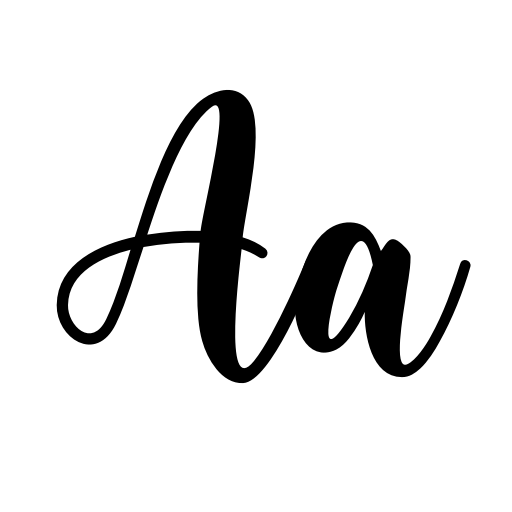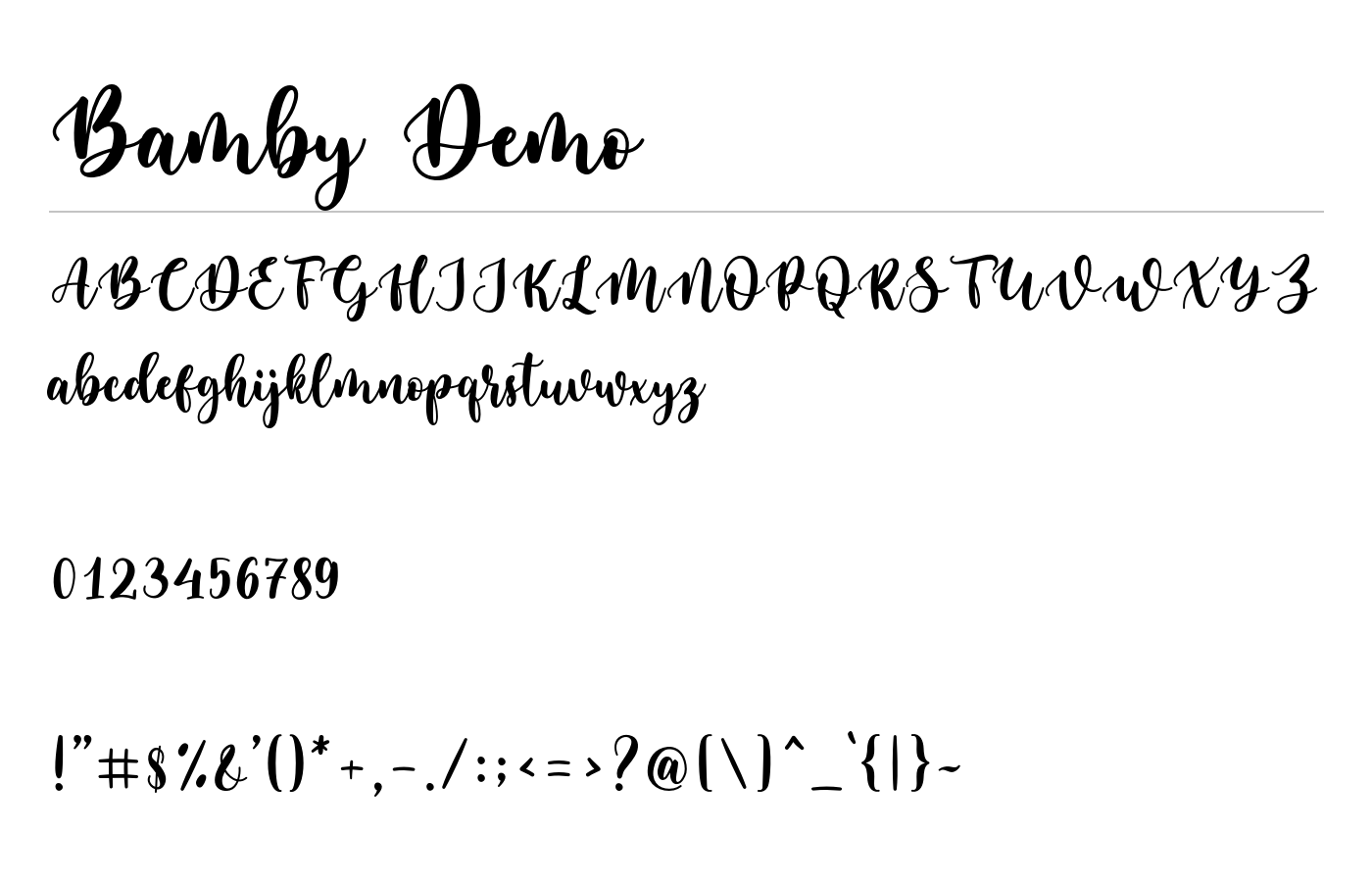
Bamby Demo is a lively and elegant script font with a hand-lettered charm, featuring smooth, flowing strokes and moderate contrast that give it a warm, inviting feel. Its rounded shapes and playful swashes make it perfect for creative branding, invitations, and feminine designs where a personal, approachable touch is desired. This font works beautifully in headlines and logos, adding a distinctive, stylish flair that captures attention without sacrificing readability.
Bamby Demo Font
About Bamby Demo Font